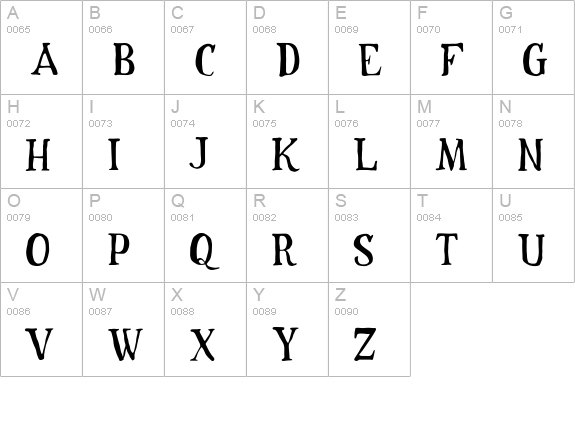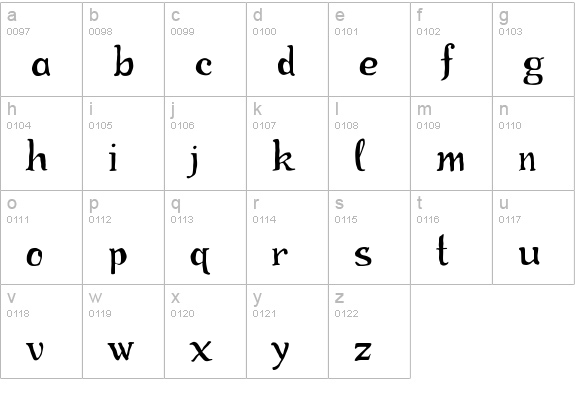
Steam Font Details
Steam font is a captivating and versatile typeface that captures the essence of creativity and adventure. With its distinctive vintage aesthetic, this font is perfect for evoking a sense of nostalgia and authenticity in your designs. Whether you're working on a retro-themed project or simply want to add a touch of uniqueness to your work, Steam font is a must-have. What makes Steam font even more remarkable is that it is available for free download at FontsMarket.com. Yes, you read that right - you can freely access this incredible font without any cost. FontsMarket.com offers a vast collection of high-quality fonts, and Steam font is just one of the many gems you can find there. This font features bold and intricate letterforms that are reminiscent of old steam locomotives and industrial machinery. Its fine details and rugged edges give it a distinct personality, making it ideal for headlines, logos, posters, and more. With Steam font, you can effortlessly transport your audience to a bygone era and create designs that leave a lasting impression. The versatility of Steam font is unparalleled, as it can seamlessly adapt to various design styles and contexts. From vintage-inspired designs to modern and edgy creations, this font has the power to elevate any project. Its wide range of glyphs and ligatures allows for endless creative possibilities, enabling you to tailor your designs to perfection. So, why wait? Take advantage of the opportunity to download Steam font for free at FontsMarket.com. Enhance your design projects with this remarkable typeface that effortlessly captures the spirit of adventure and adds a touch of nostalgia. Unleash your imagination and let Steam font guide you on a journey of creativity and self-expression.